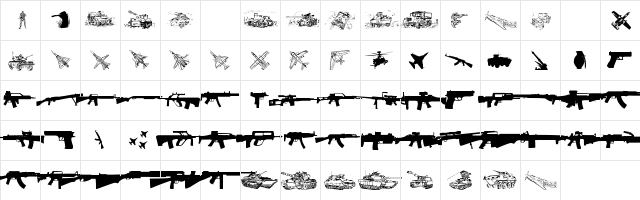
Army weapons tfb Regular
Design Context for Army weapons tfb Typeface
Army weapons tfb draws on military and industrial lettering traditions, with forms that communicate strength and precision.
Designed for tactical branding, military-inspired apparel, action game UI, and utility-focused signage.
Pro Tip: Use Army weapons tfb at medium-to-large sizes where its utilitarian structure can be appreciated — the character detail gets lost at small sizes.